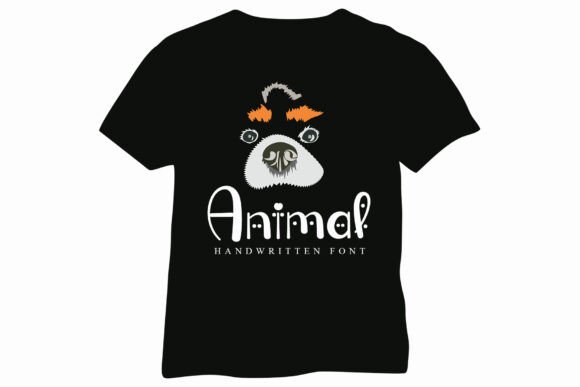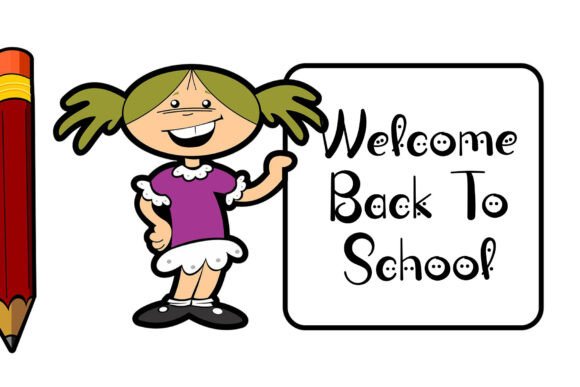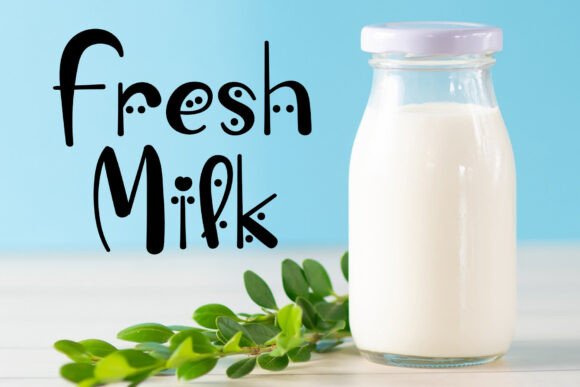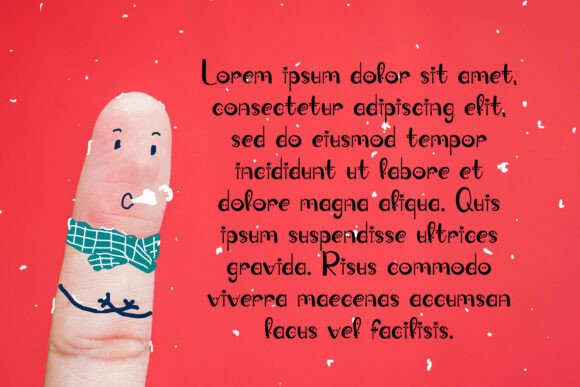
The Elusive Perfect Font: My Journey with Emelin
Ah, the quest for the perfect font. We’ve all been there – stuck in the midst of a project, pouring over font options, and yet, nothing seems quite right. I recall a particularly frustrating design session where I was working on a wedding invitation card. The client wanted something elegant, yet modern; classic, yet unique. And, of course, I had to deliver. That’s when I stumbled upon Emelin Font.
First Impressions: A Love Affair with Emelin
Emelin Font immediately caught my eye with its elegant and refined aesthetic. This font is specially designed to bring a touch of sophistication to your projects. With its professional hand touch, Emelin is perfect for a variety of applications, from wedding invitation cards and birthday greetings to school assignments and other important events.
- ✨ Elegant and refined aesthetic, perfect for projects that demand sophistication
- ✅ Professional hand touch for a unique, high-end feel
- 💻 Carefully crafted with attention to detail, ensuring a seamless design experience
- 🌟 Highly versatile, suitable for a wide range of projects and applications
- 🤔 Some users might find the font a tad too ornate for very minimalist projects
One of the standout features of Emelin Font is its comprehensive set of glyphs and OpenType features. These allow for a high degree of customization, enabling you to add unique touches to your designs. To access these features:
The Story Behind Emelin: A Designer’s Inspiration
Emelin Font was crafted with the designer’s passion for elegance and sophistication. Inspired by classic typography and modern aesthetics, Emelin was created to provide designers with a versatile, high-quality font for a wide range of projects. The designer aimed to create a font that would be both timeless and trendy, making it perfect for creative professionals.
| Font Name | Emelin Font |
| Author | GiaLetter |